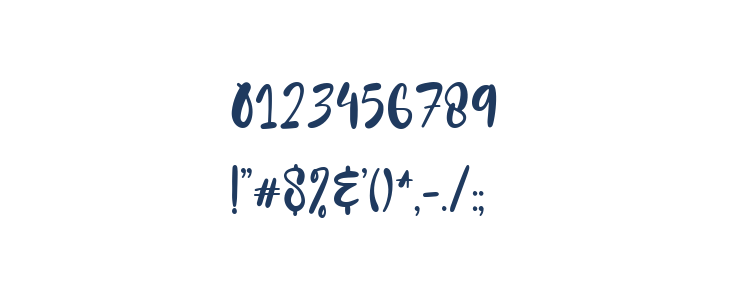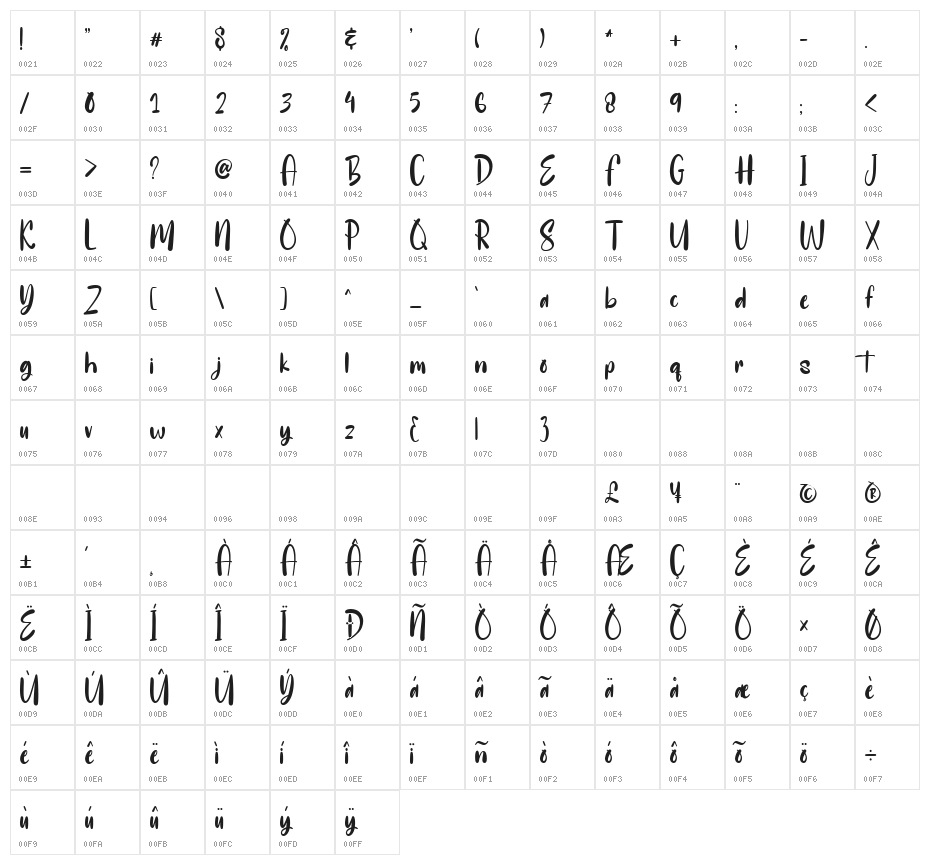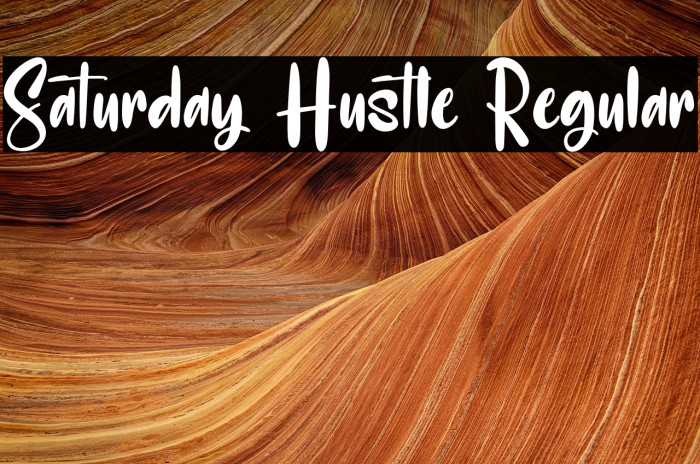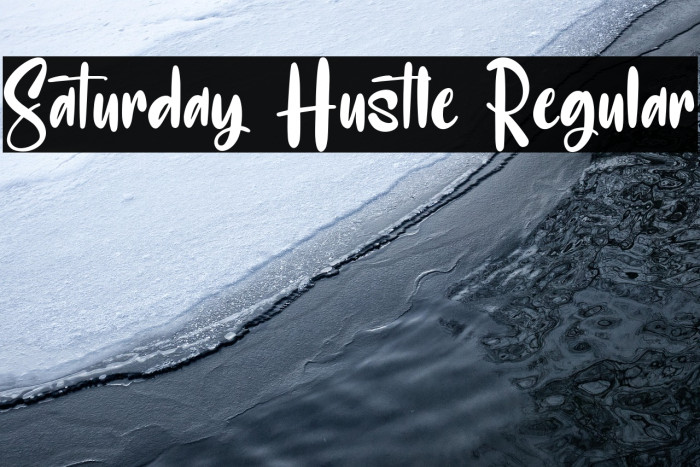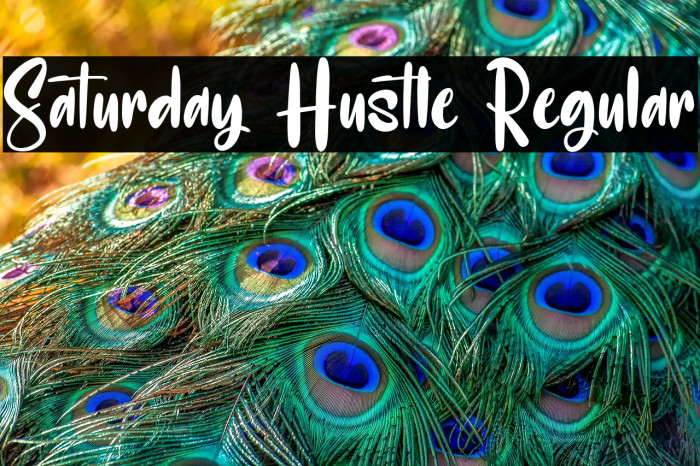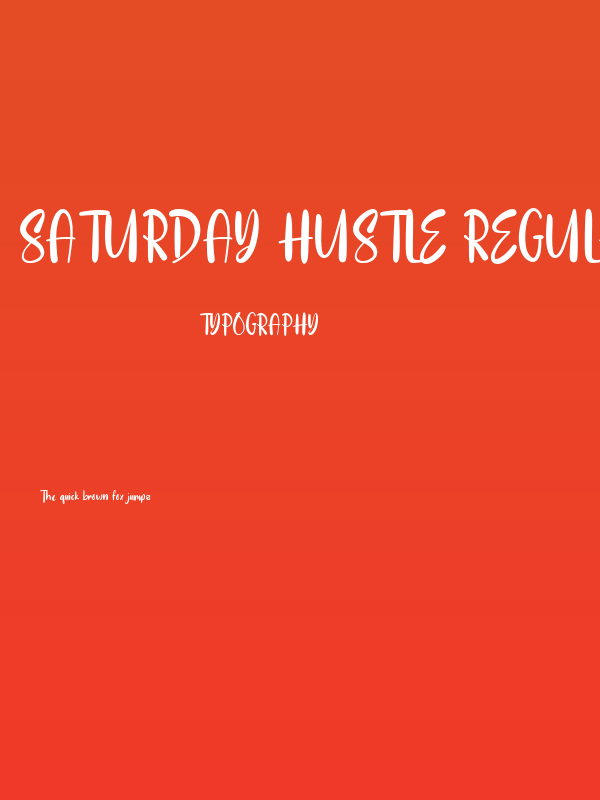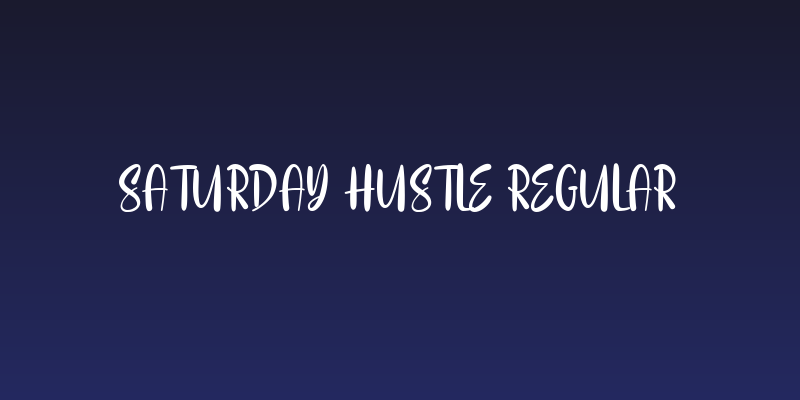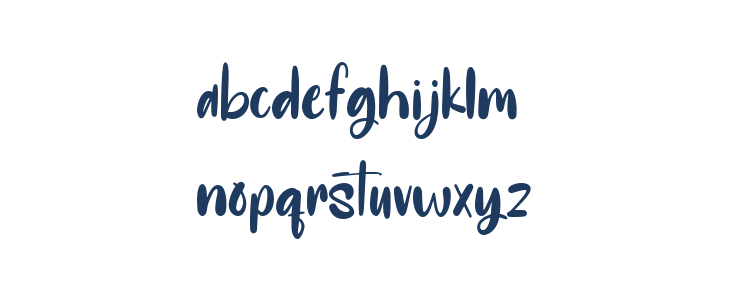
Saturday Hustle Regular Font
Saturday Hustle Regular Description
This font features a playful and energetic script style with a hand-drawn appearance. The letters are bold and slightly slanted, giving a sense of movement and dynamism. The uppercase characters are tall and narrow, while the lowercase letters are more rounded and compact. The numbers and special characters maintain the same lively aesthetic, making the font versatile for various creative projects. Its brush-like strokes and casual feel make it ideal for designs that require a personal touch.